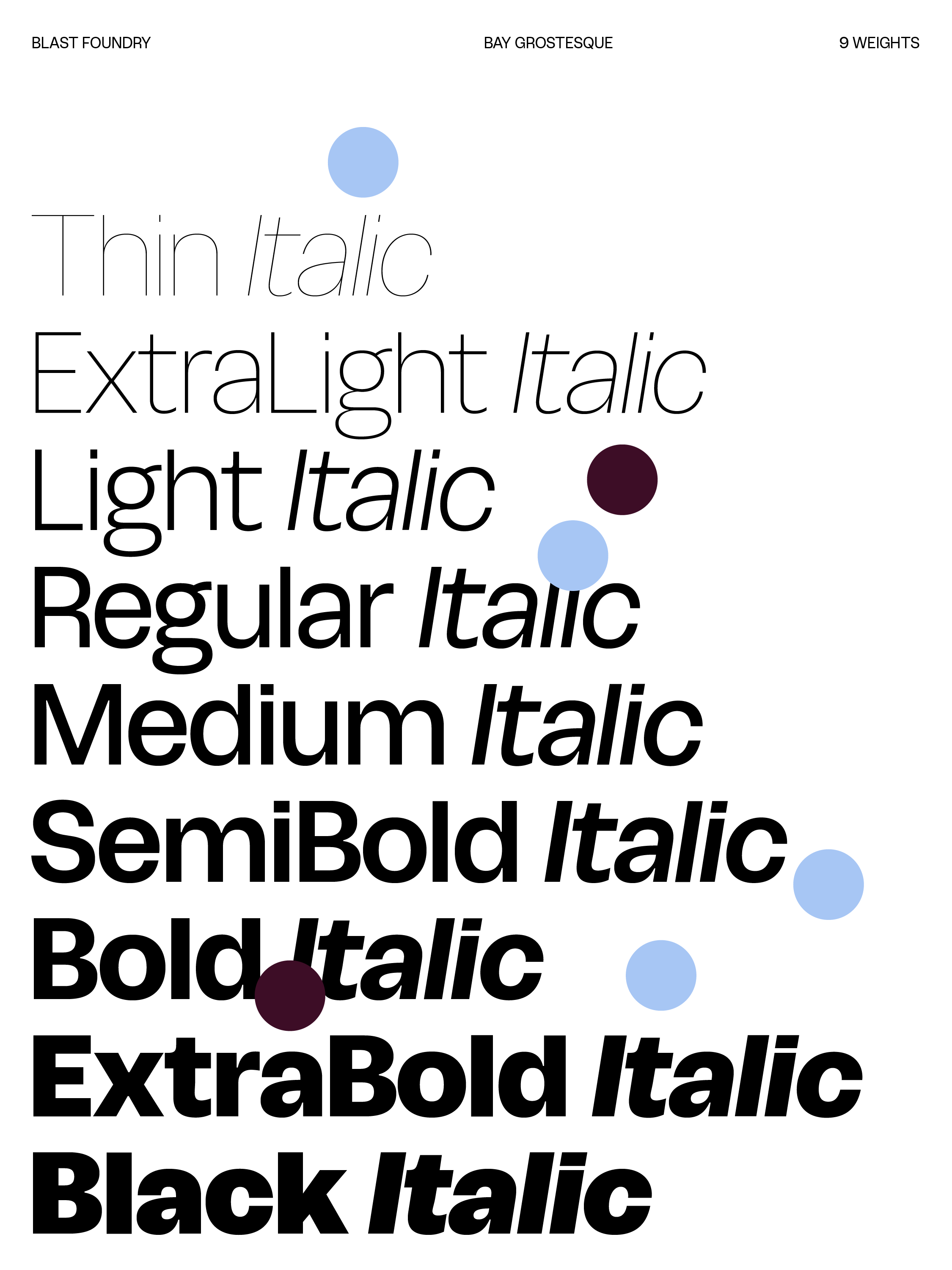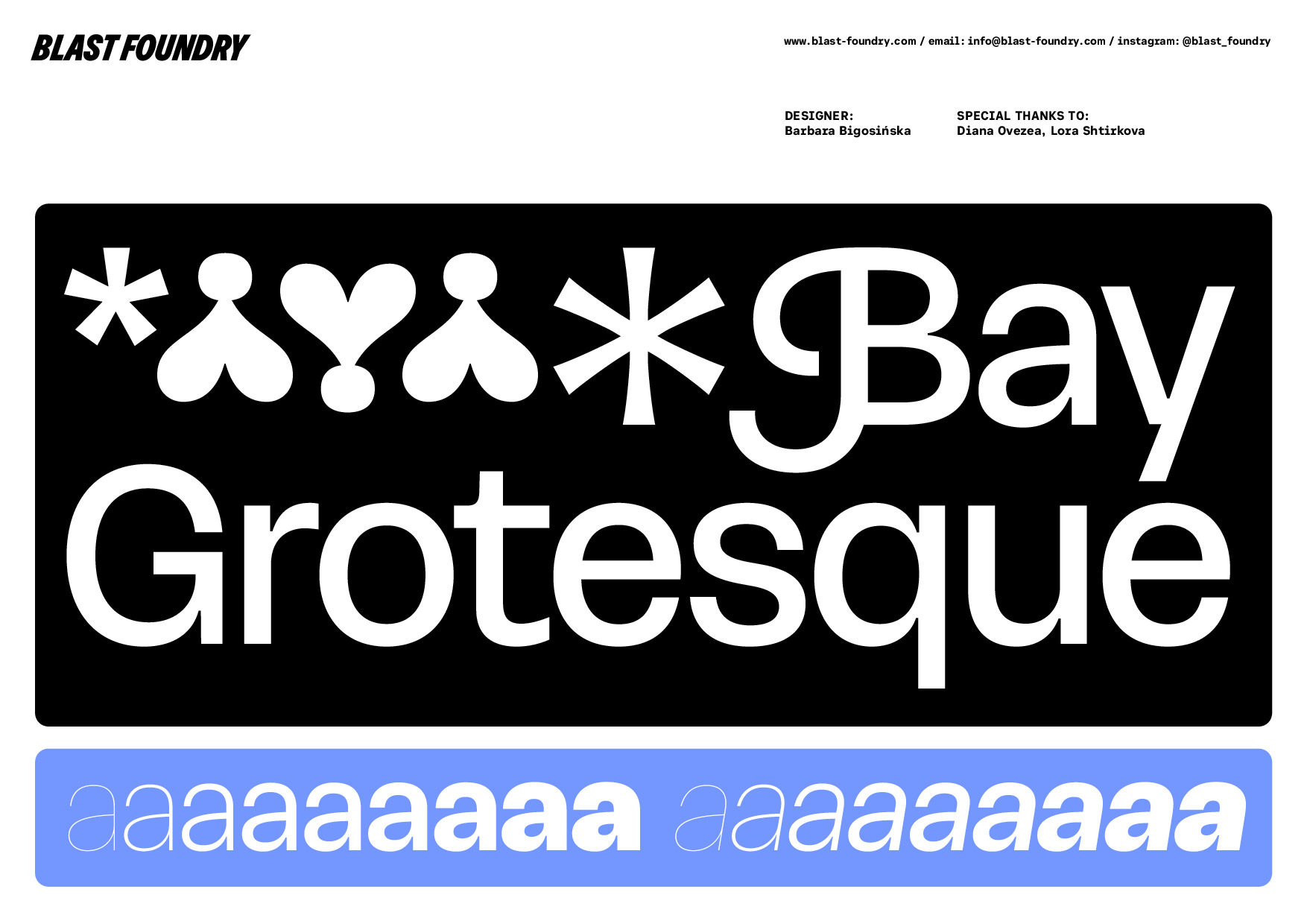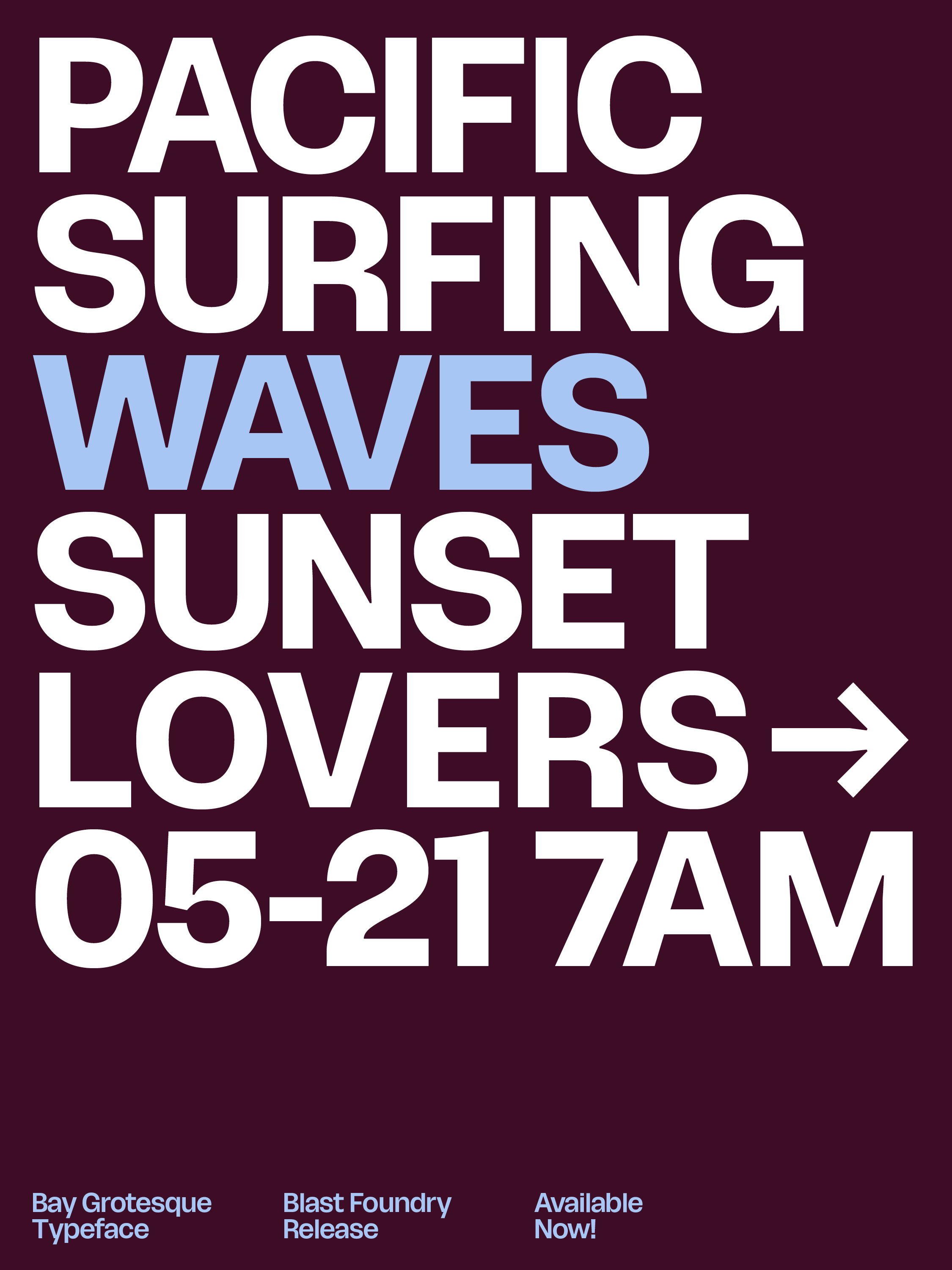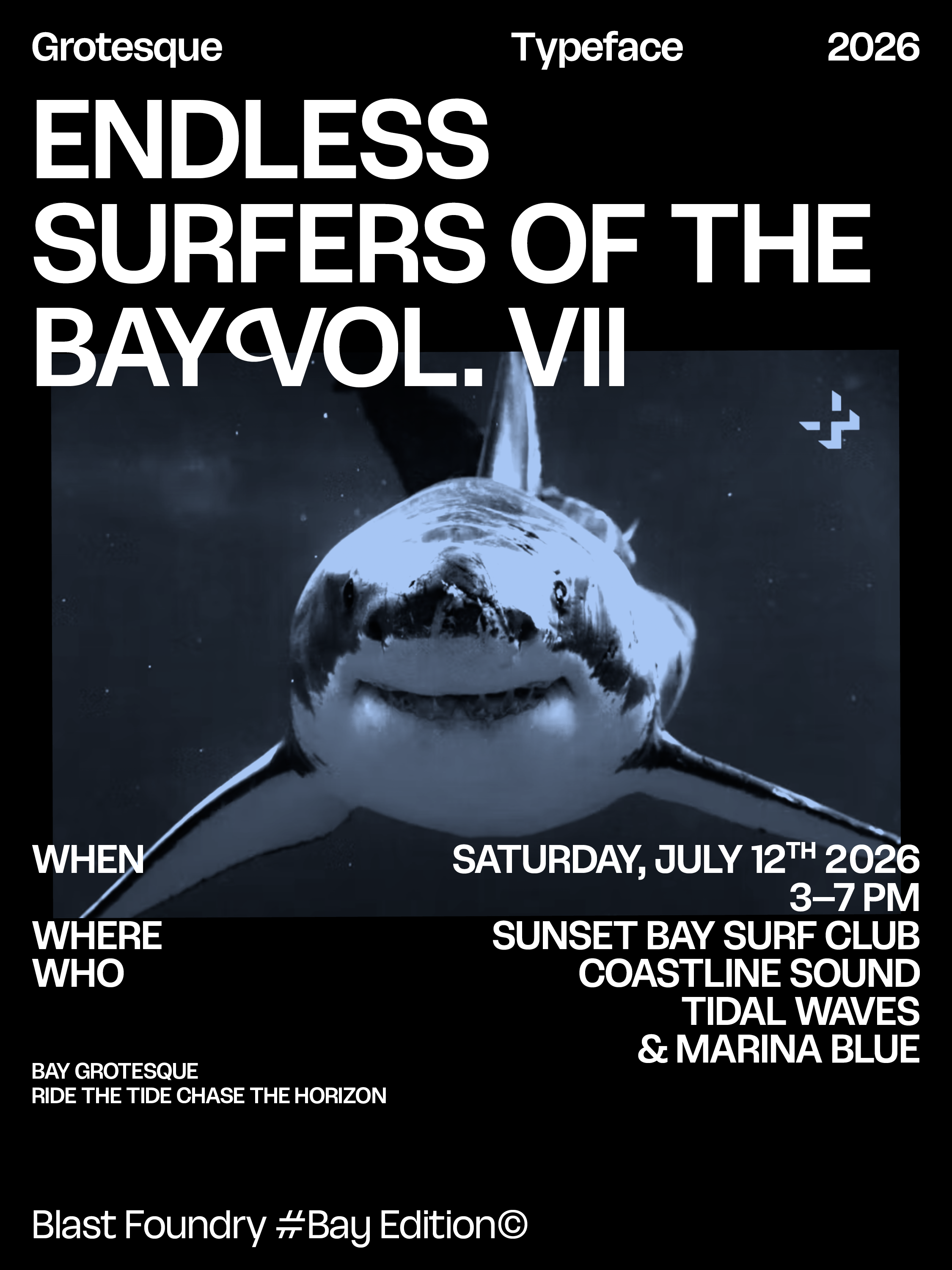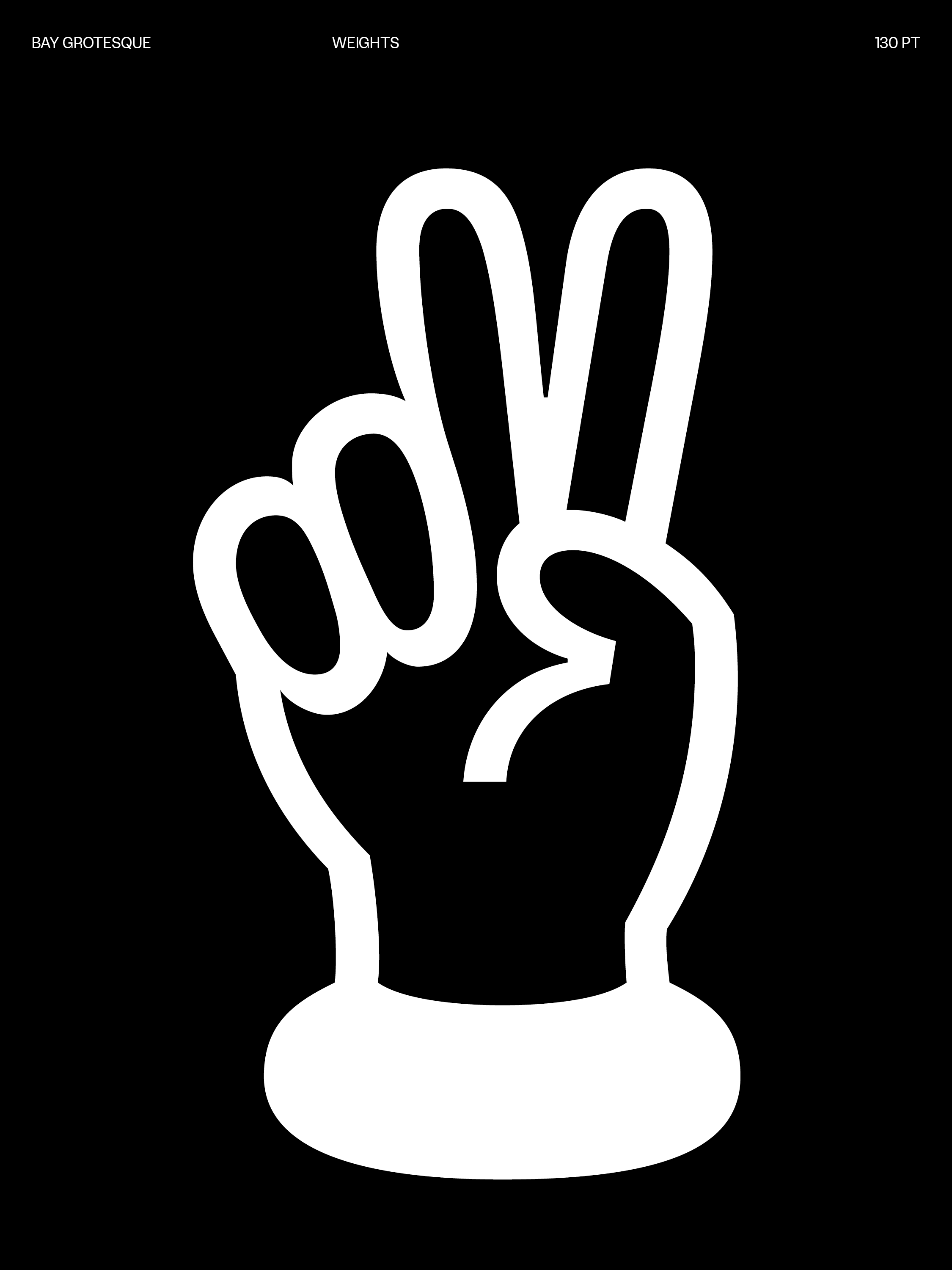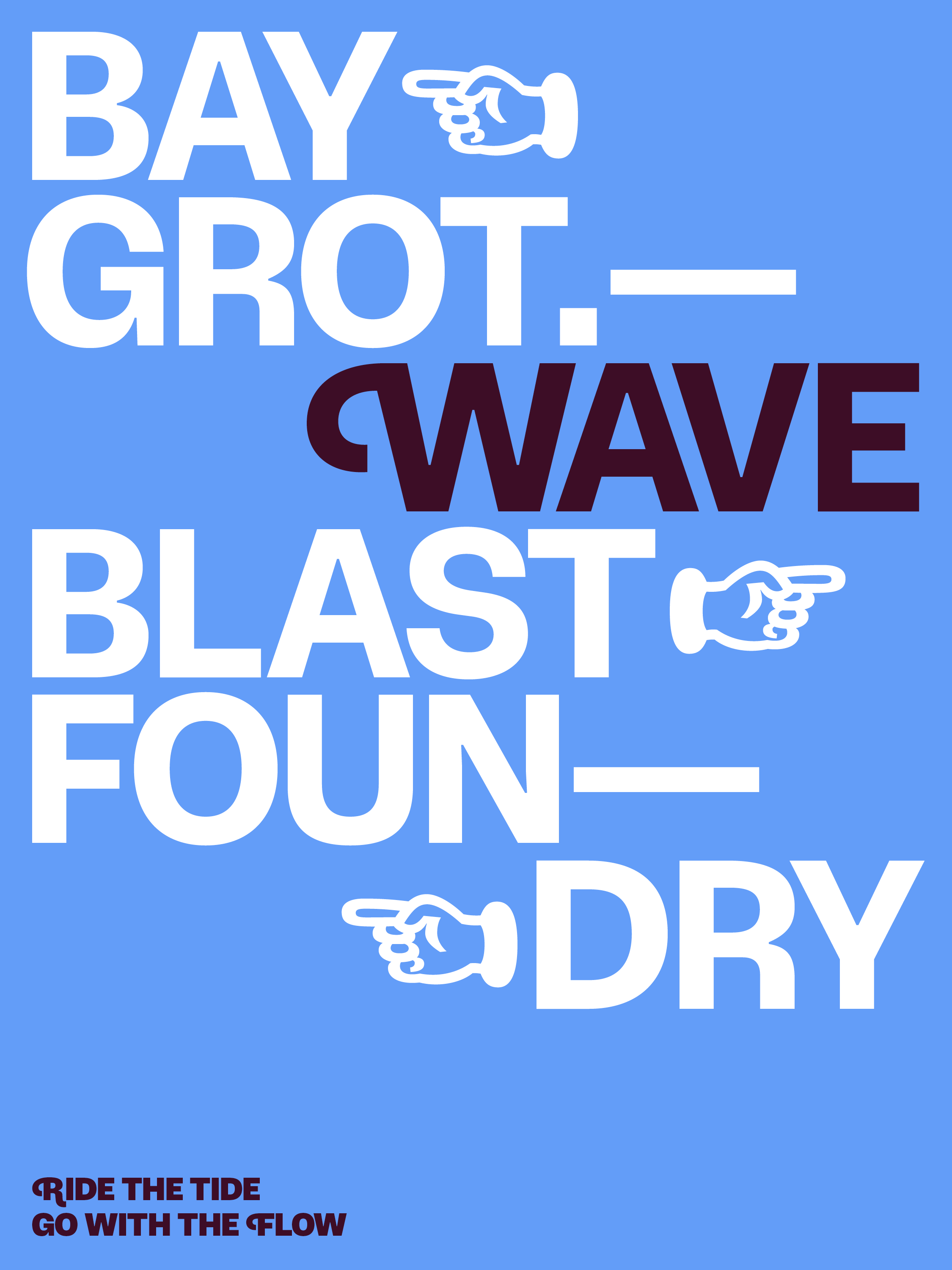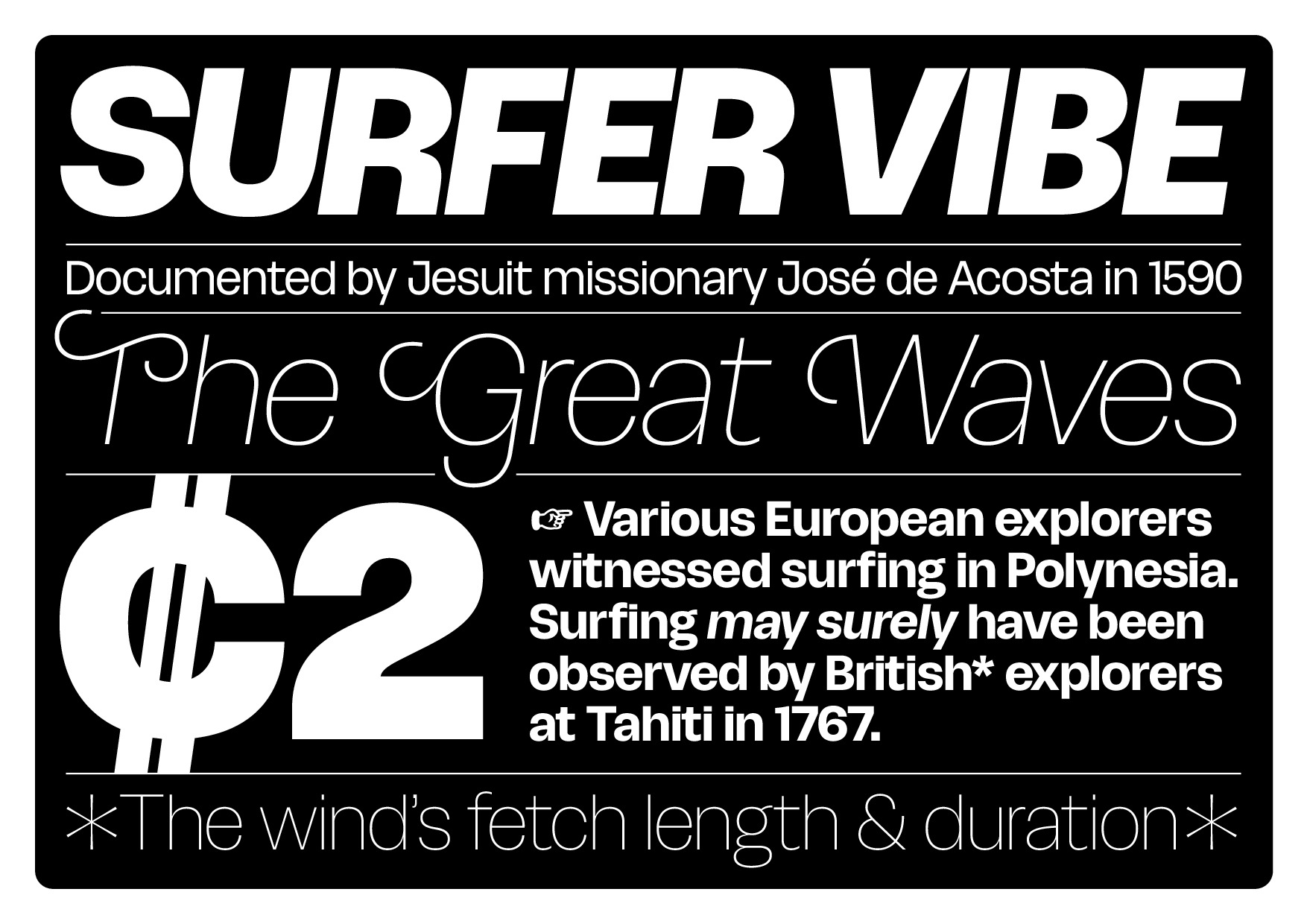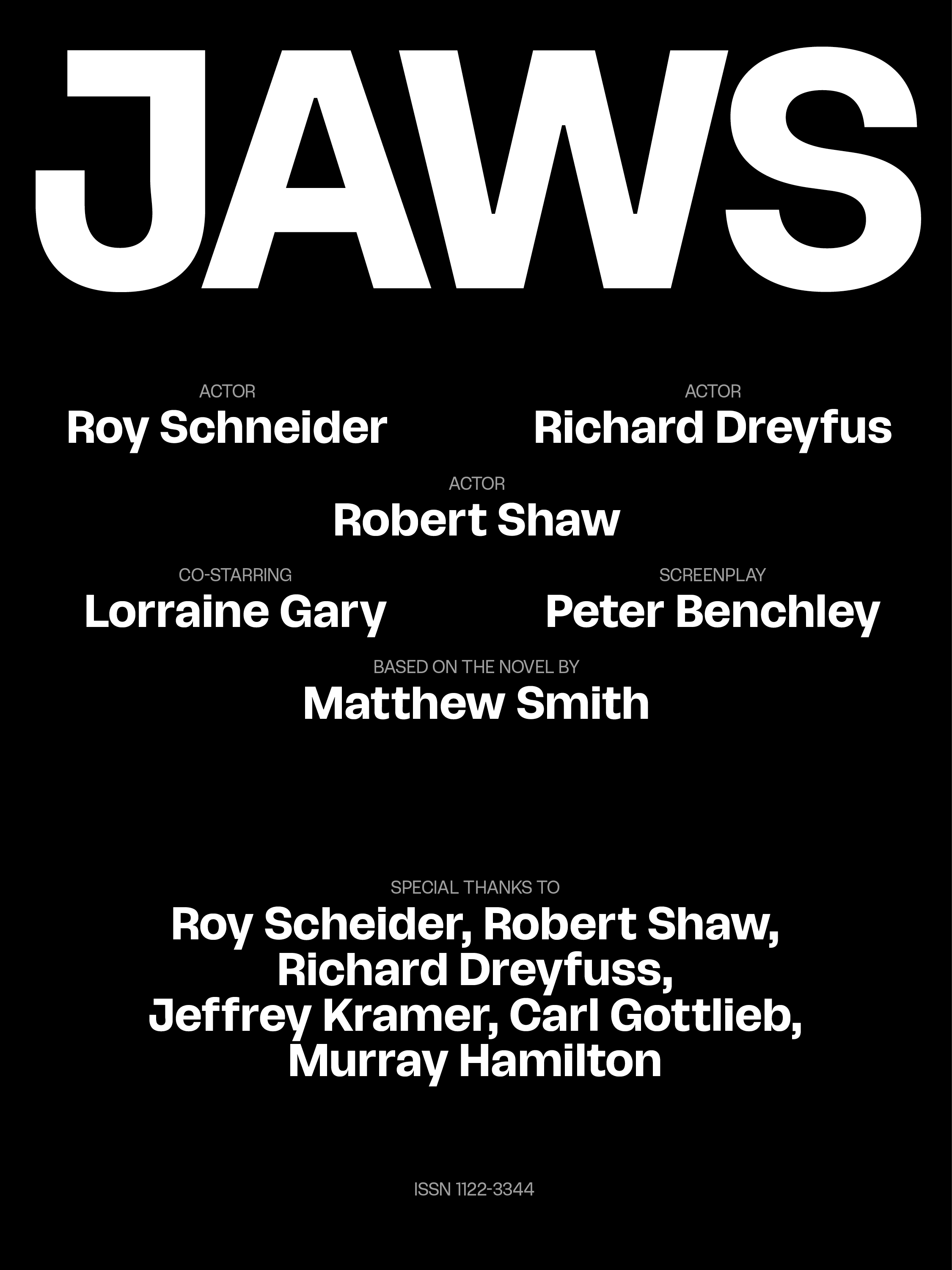
Bay Grotesque
Unique grotesque in 9 weights + italics with alternates
Bay Grotesque VF • wght: [100–900]
Bay Grotesque is a contemporary grotesque with an understated edge: refined in structure, yet quietly expressive.
It pairs clarity with nuance: two sets of swash capitals, small capitals, and oldstyle numerals introduce a sense of considered detail, while alternate lowercase forms (a, k, v, w, x, and y) soften its voice with subtle individuality.
From Thin to Black, its range enables confident, fluid hierarchy across print and screen. Available as both a static and variable font, Bay Grotesque adapts effortlessly—precise, versatile, and distinctly poised.